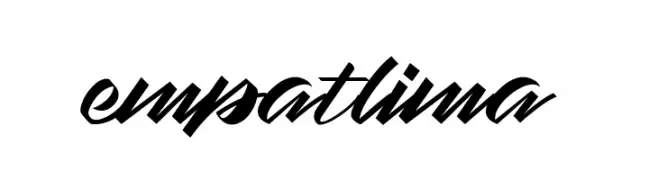
( Haksen Letters - Sarwo Edhi Prayitno )
A playful and elegant script font with flowing, interconnected letters.
( Halim Antoni - fontbundles.net/halimstudio )
An elegant script font with flowing, interconnected letters and high contrast strokes.
( Halim Antoni - fontbundles.net/halimstudio )
A dynamic and expressive handwritten font with fluid, interconnected strokes.
( Halim Antoni - fontbundles.net/halimstudio )
A bold, flowing script font with expressive, connected strokes.
( Halim Antoni - fontbundles.net/halimstudio )
A graceful script font with fluid, interconnected strokes and elegant loops.
( Hanoded - David Kerkhoff - www.hanodedfonts.com )
A dynamic, cursive font with fluid, interconnected strokes and an expressive style.
( Haris Prawoto - graphicriver.net/user/selawe/portfolio )
A dynamic, flowing script font with elegant, interconnected letters.
( Haris Prawoto - graphicriver.net/user/selawe/portfolio )
A stylish cursive font with flowing, interconnected letterforms.
( Haris Prawoto - graphicriver.net/user/selawe/portfolio )
A modern, handwritten font with fluid, connected strokes and a signature-like style.
( Haris Prawoto - graphicriver.net/user/selawe/portfolio )
A bold, energetic script font with fluid, connected strokes and a handwritten style.